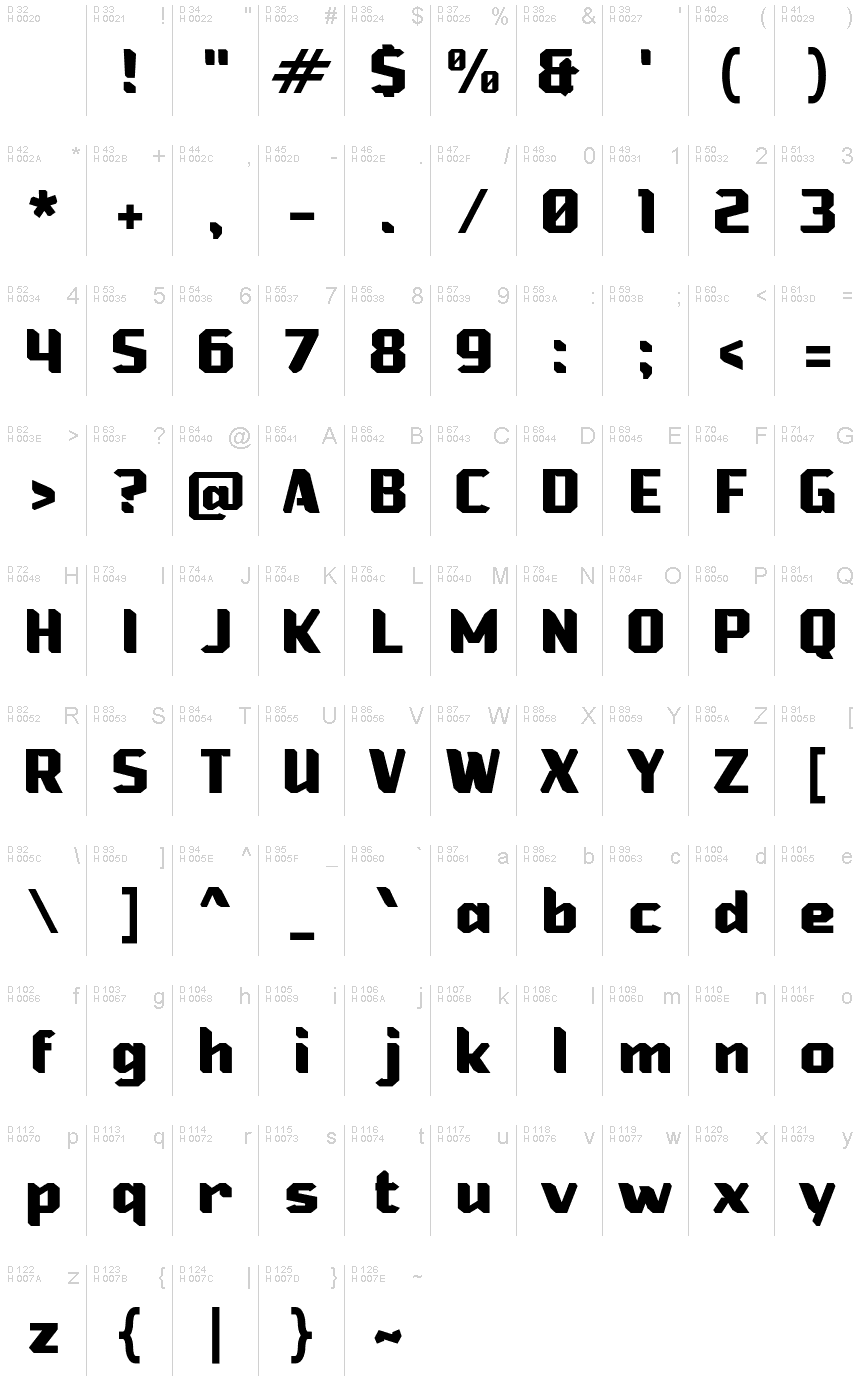
Electro Box
Electro Box, the brainchild of designer wep, is a bold and futuristic display font that's perfect for projects that require a touch of techno flair. With its semi-expanded width and eye-catching design, Electro Box commands attention and adds a unique edge to any project. This versatile font is well-suited for branding, advertising campaigns, music album covers, and even video game titles. Whether you're creating a sci-fi movie poster or developing an edgy fashion brand, Electro Box will deliver the bold impact you need to make your project stand out from the crowd.